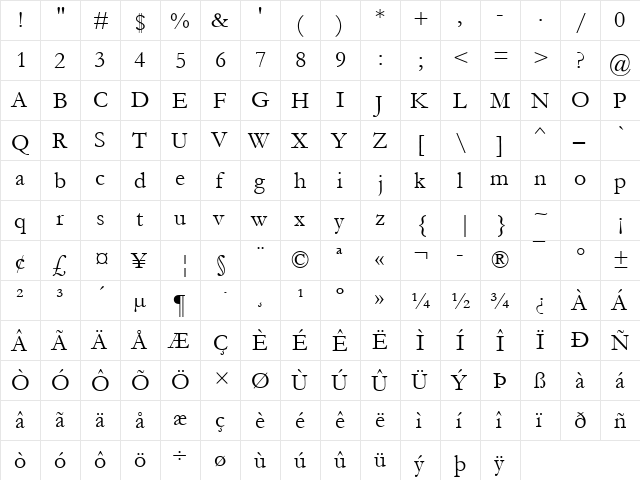
Garamond Regular
| Foundry | Monotype Typography, Inc. |
| Designer | Claude Garamond |
Design Context for Garamond Typeface
Garamond offers clean, dependable letterforms without strong stylistic allegiance, making it a practical choice for designers who need flexibility.